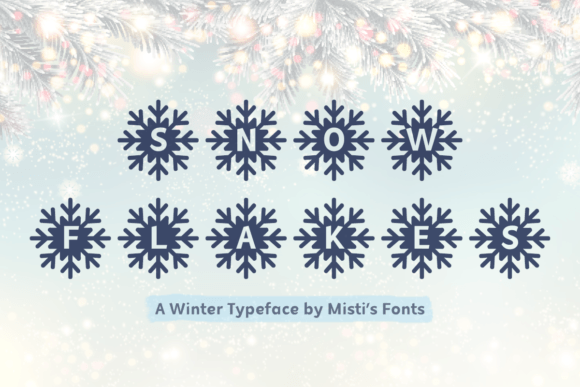
Step into the world of Mf Snowflakes Font, a mesmerizing display typeface that will transform your festive designs into mesmerizing masterpieces. Crafted with meticulous care by Misti, this winter-themed font is a treat for those who cherish the magic of the holiday season.
With Mf Snowflakes Font, you hold the key to creating enchanting Christmas gift tags that will bring a smile to the faces of your loved ones. Let your creativity flow as you design one-of-a-kind Holiday greeting cards that capture the warmth and joy of the season.
But that's just the beginning! Unleash your imagination and create stunning personalized gifts that will leave a lasting impression. Picture a coffee mug adorned with your loved one's name, crafted with the delicate touch of Mf Snowflakes Font. Or envision a set of monogram stickers, each one a unique expression of style and individuality. The possibilities are endless, and the results are sure to be unforgettable.
Whether you're a hobby crafter seeking to add a touch of whimsy to your projects or an Etsy shop owner looking to expand your product line, Mf Snowflakes Font is the perfect choice for you. Its versatility extends beyond the realm of traditional paper crafts, allowing you to create a wide range of personalized products that will delight and inspire.
Make Mf Snowflakes Font your go-to font for all things festive and whimsical. Its playful charm and enchanting aesthetic will add a touch of magic to your designs, leaving a lasting impression on all who encounter them.